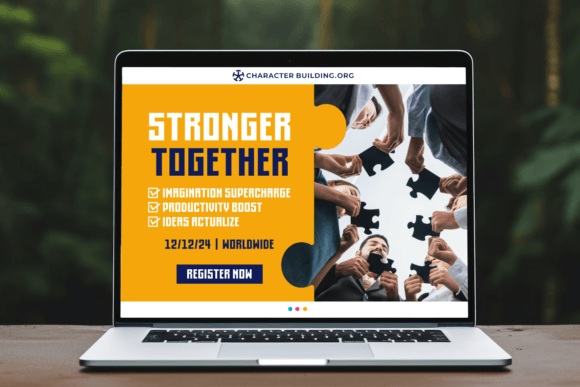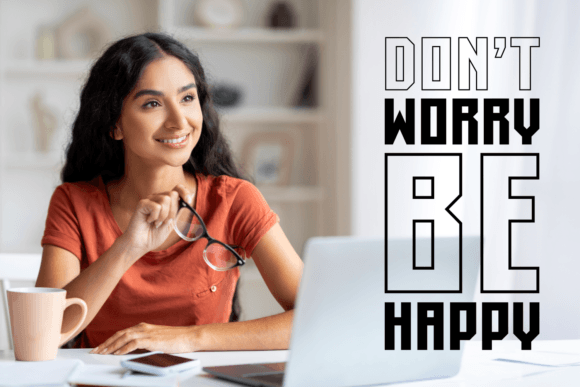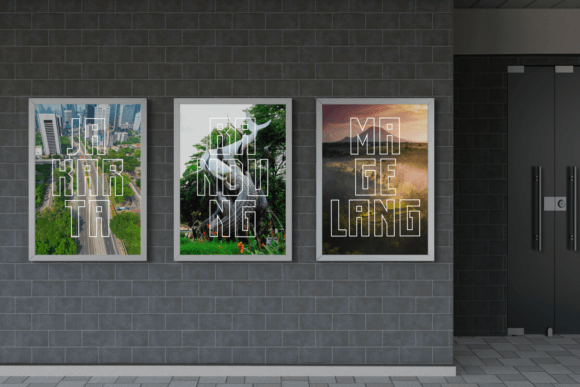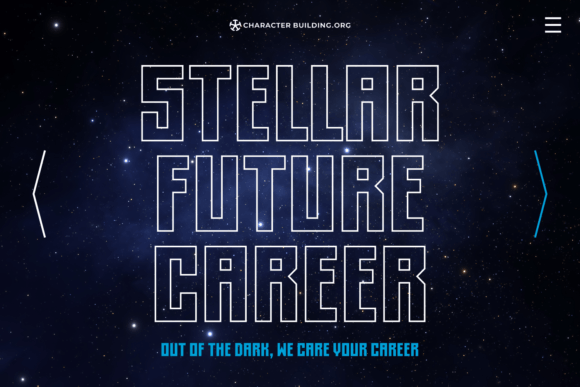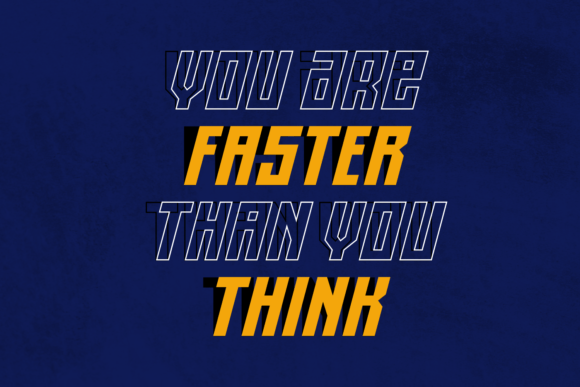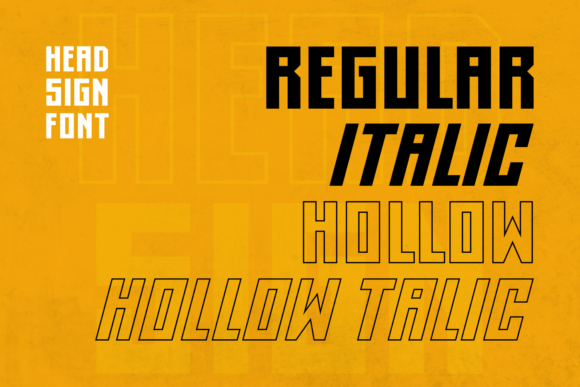
Introduction to Head Sign Font
Head Sign, a display font, is your go-to choice for making a bold statement.
With its distinctive and eye-catching design, Head Sign is perfect for grabbing attention in headlines, banners, and creative displays Its unique style adds a touch of personality to your text, ensuring that your message stands out.
Key Features of Head Sign Font
Why Choose Head Sign Font?